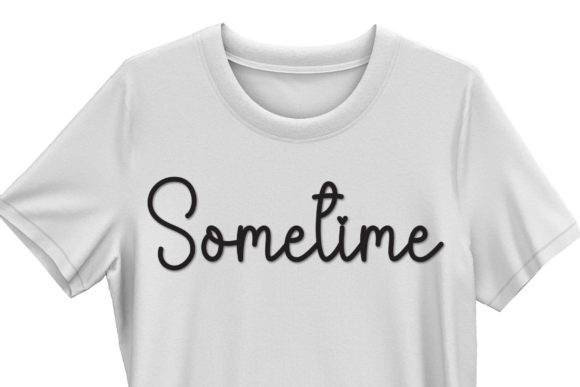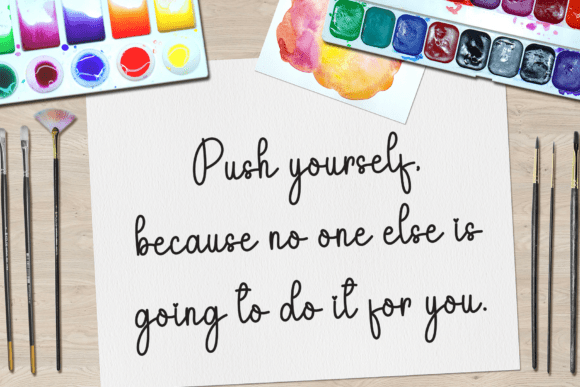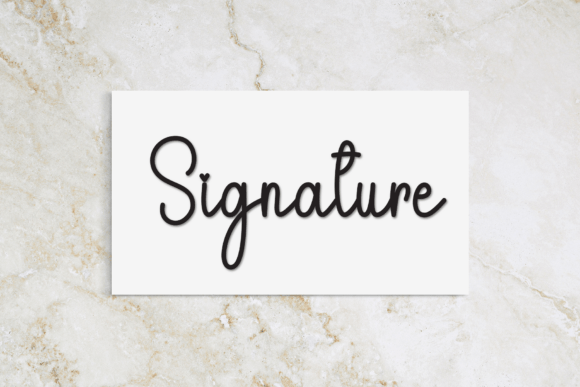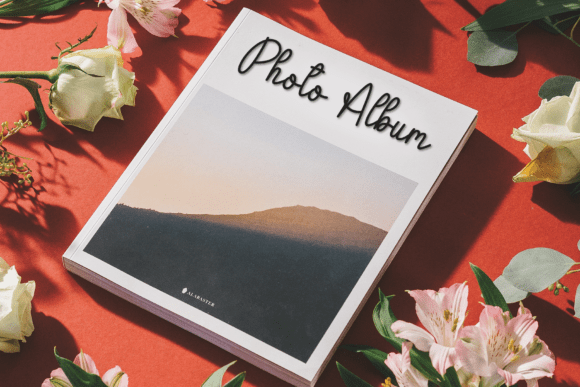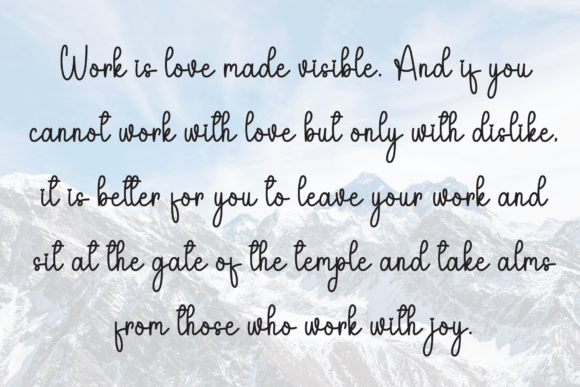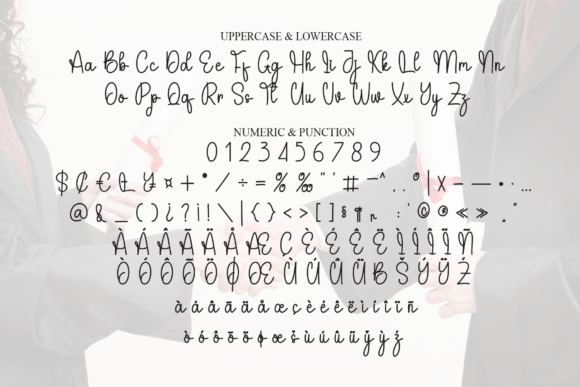
Introducing Graduation Font: The Perfect Blend of Elegance and Playfulness
Are you a designer or crafter looking for a font that can add a touch of sophistication and whimsy to your projects? Look no further than Graduation Font, a stylish handwritten script font that is sure to capture the essence of elegance and playfulness in every stroke.
What is Graduation Font?
Graduation Font is a beautifully crafted handwritten script font that boasts flowing curves and a natural rhythm, making it perfect for adding a personal and charming touch to invitations, branding, and social media. Its unique design brings warmth, sophistication, and creativity to any project, making it an ideal choice for designers and crafters who want to make their work stand out.
Key Features of Graduation Font
- Elegant and Playful Design: Graduation Font features a stylish handwritten script design that is both elegant and playful, making it perfect for a wide range of projects.
- Flowing Curves and Natural Rhythm: The font’s flowing curves and natural rhythm give it a unique and charming feel that is sure to capture the attention of your audience.
- Personal and Charming Touch: Graduation Font adds a personal and charming touch to invitations, branding, and social media, making it perfect for designers and crafters who want to create a lasting impression.
- Warmth, Sophistication, and Creativity: The font’s graceful design brings warmth, sophistication, and creativity to any project, making it an ideal choice for designers and crafters who want to add a touch of elegance to their work.
Use Cases for Graduation Font
Graduation Font is a versatile font that can be used in a wide range of projects, including:
- Invitations: Whether you’re planning a wedding, birthday party, or graduation ceremony, Graduation Font is the perfect choice for creating beautiful and elegant invitations.
- Branding: Graduation Font can be used to create a unique and memorable brand identity that reflects your business’s values and personality.
- Social Media: The font’s playful and elegant design makes it perfect for social media graphics, posts, and stories.
- Stationery and Packaging: Graduation Font can be used to create beautiful stationery, packaging, and labels that add a touch of elegance to your products.
Why Choose Graduation Font?
There are many reasons why designers and crafters choose Graduation Font for their projects. Here are a few:
- Unique and Eye-Catching Design: Graduation Font features a unique and eye-catching design that is sure to capture the attention of your audience.
- High-Quality Design: Graduation Font is a high-quality font that is designed to produce crisp and clear results, even at small sizes.
- Support for Multiple Languages: The font supports multiple languages, making it perfect for designers and crafters who work with clients from around the world.
Tips for Using Graduation Font
Here are a few tips for using Graduation Font in your projects:
- Use it Sparingly: Graduation Font is a elegant and playful font, so use it sparingly to avoid overwhelming your design.
- Pair it with Other Fonts: Graduation Font can be paired with other fonts to create a unique and interesting design.
- Experiment with Different Sizes and Colors: Experiment with different sizes and colors to find the perfect combination for your project.
Graduation Font is a stylish handwritten script font that is perfect for designers and crafters who want to add a touch of elegance and playfulness to their projects. With its flowing curves and natural rhythm, it adds a personal and charming touch to invitations, branding, and social media. Whether you’re creating a wedding invitation, branding materials, or social media graphics, Graduation Font is the perfect choice.